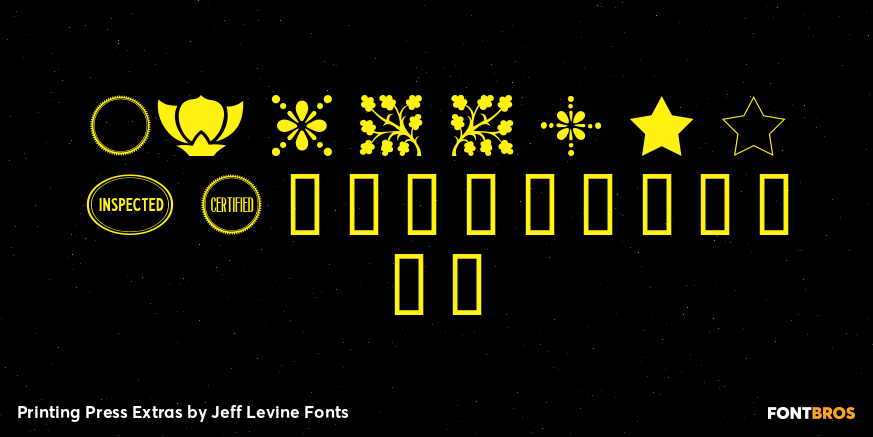
Printing Press Extras
Printing Press Extras JNL is another collection of classic printing embellishments and stock cuts from Jeff Levine, with a few new ones thrown in for good measure.